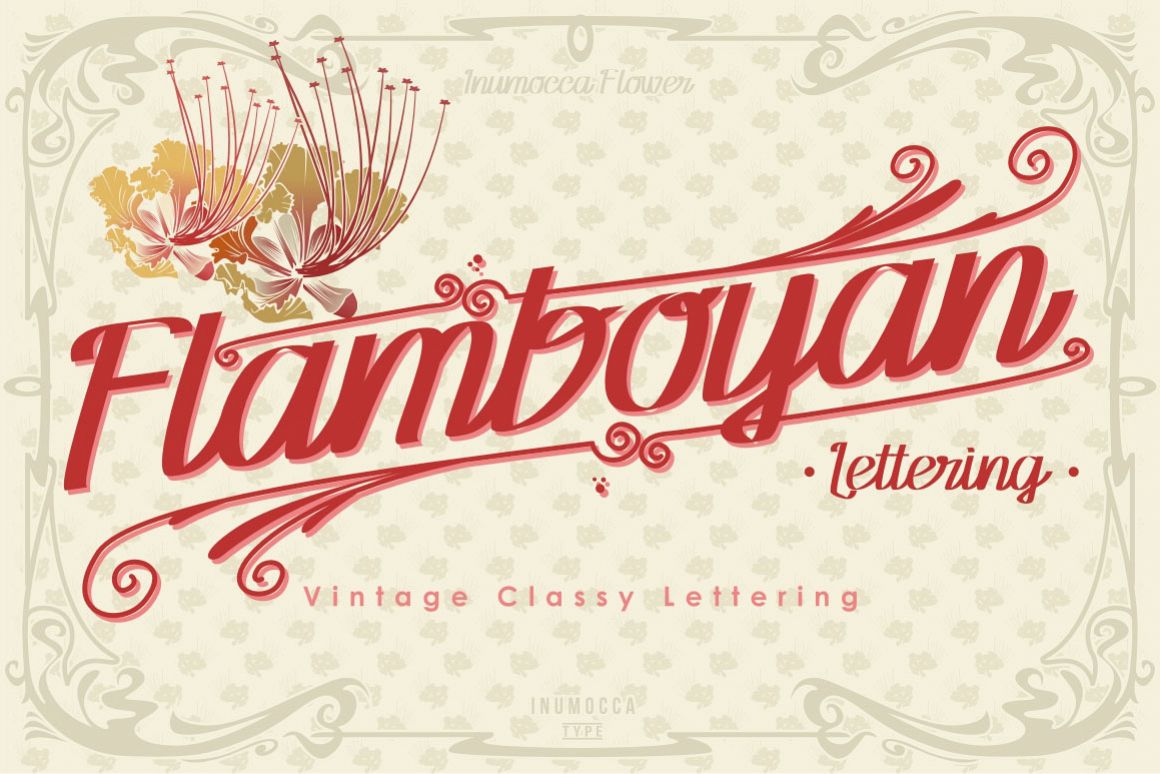
Flamboyan Lettering
Flamboyan lettering its handmade lettering by me
its really great font for your band,wedding invitation, label,
clothing company, vintage stuff, etc
- Flamboyan lettering (UPPERCASE,LowerCase,Numeric,Symbol,Punctuation characters, Multilingual support)